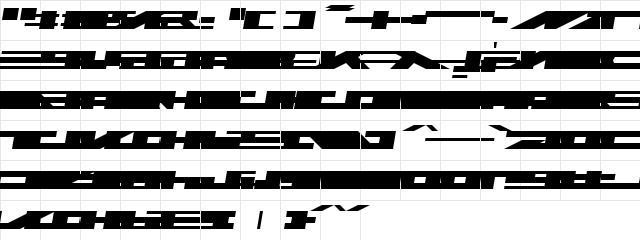
LDR DREAM Regular
| Designer | Neoqueto |
Design Context for LDR DREAM Typeface
LDR DREAM is a composed and adaptable typeface that performs quietly and consistently across a wide range of design contexts.